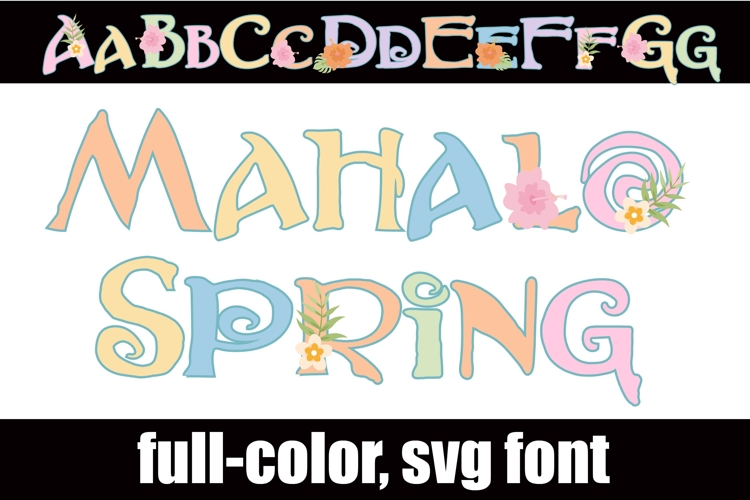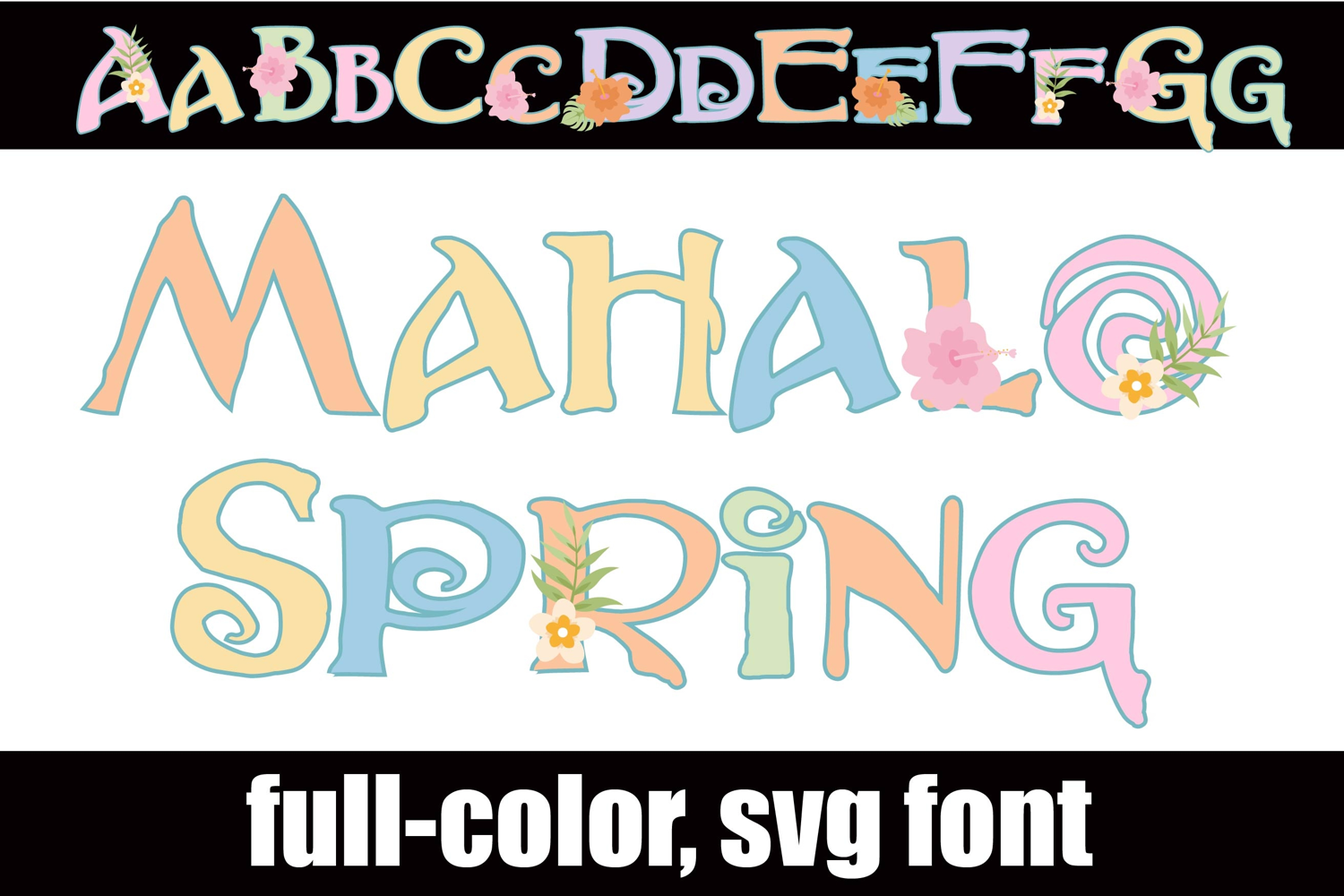
Mahalo Spring Color Font
This full-color, crafty font with florals throughout in a springy palette. There is an alt case of additional colors of each letter that you can access through your system's character map.